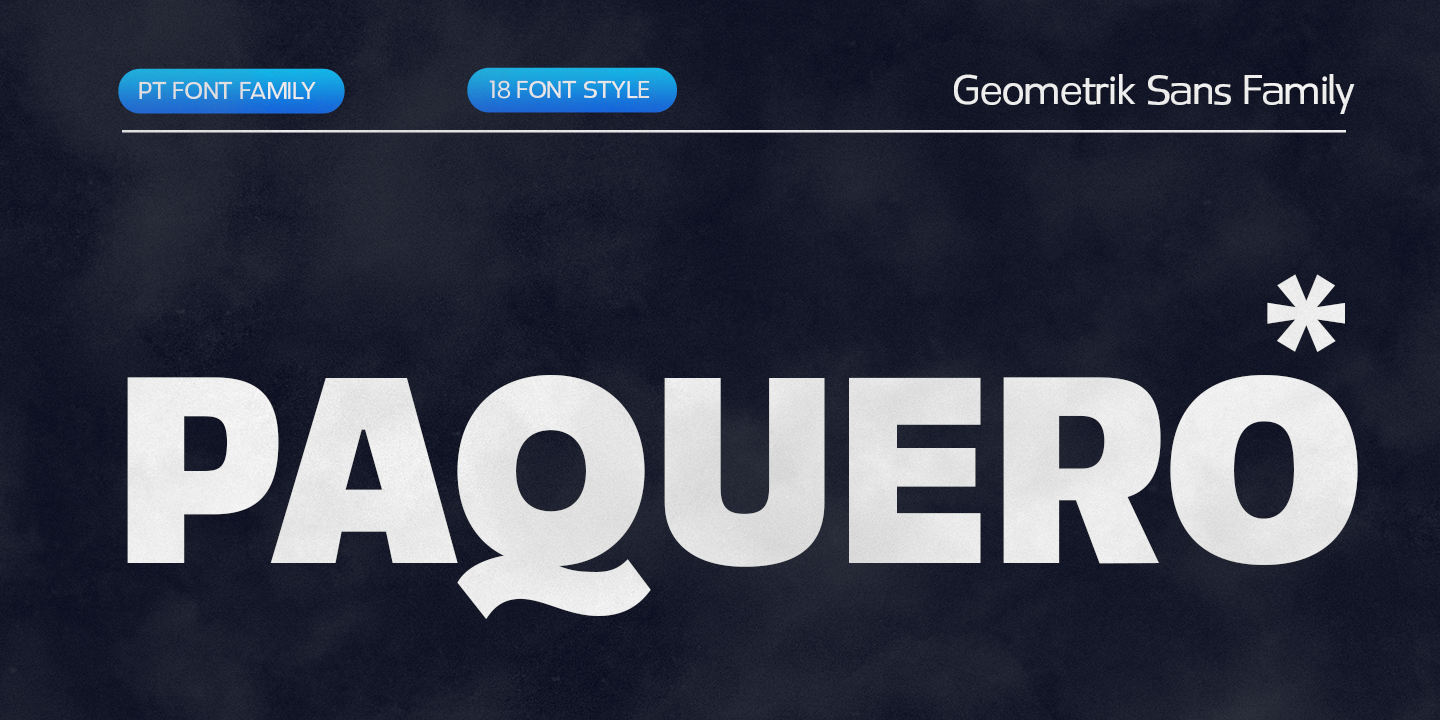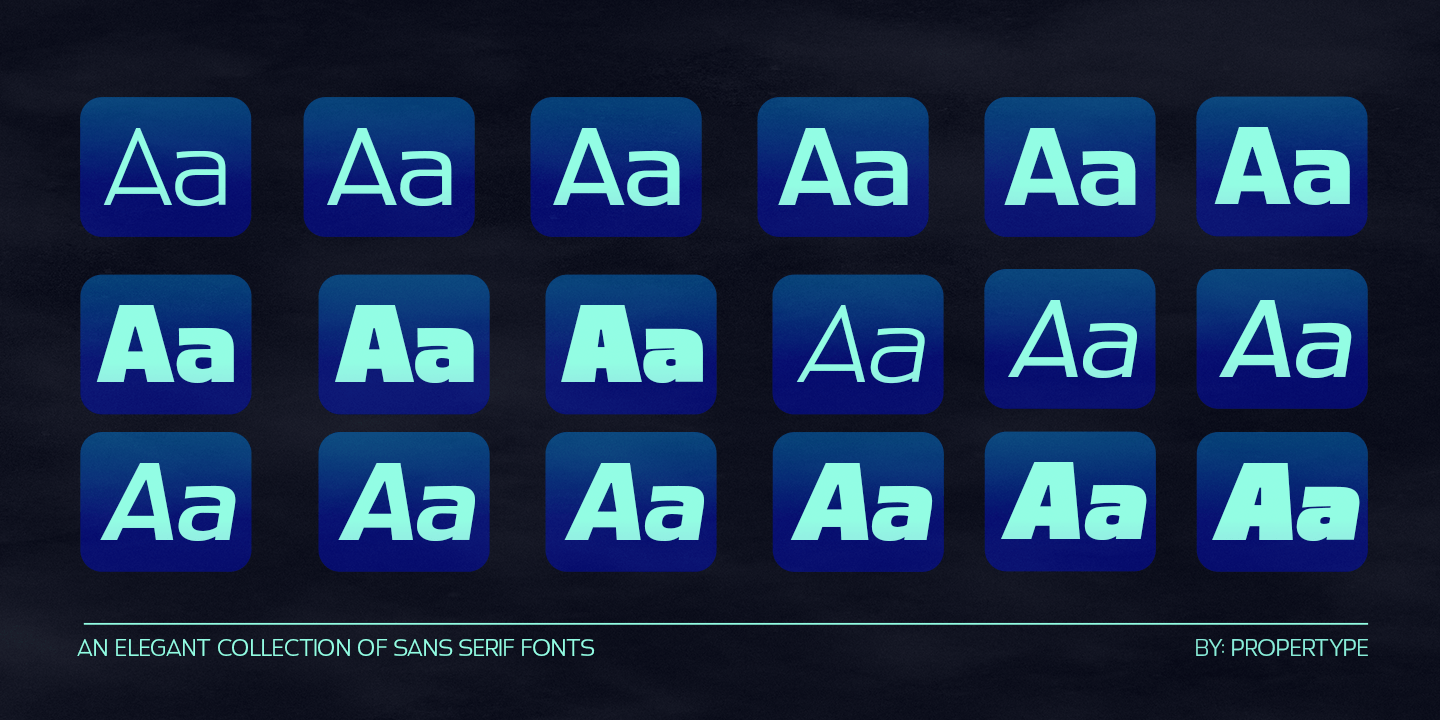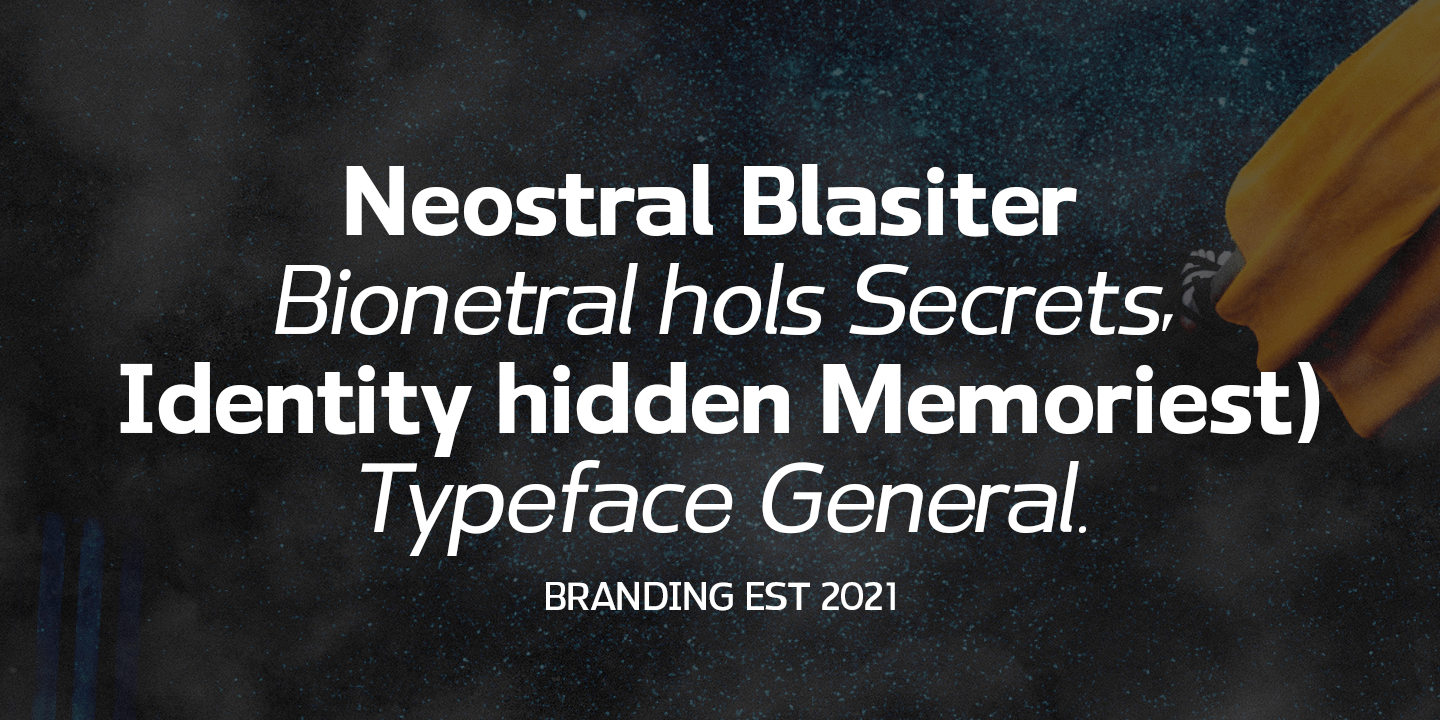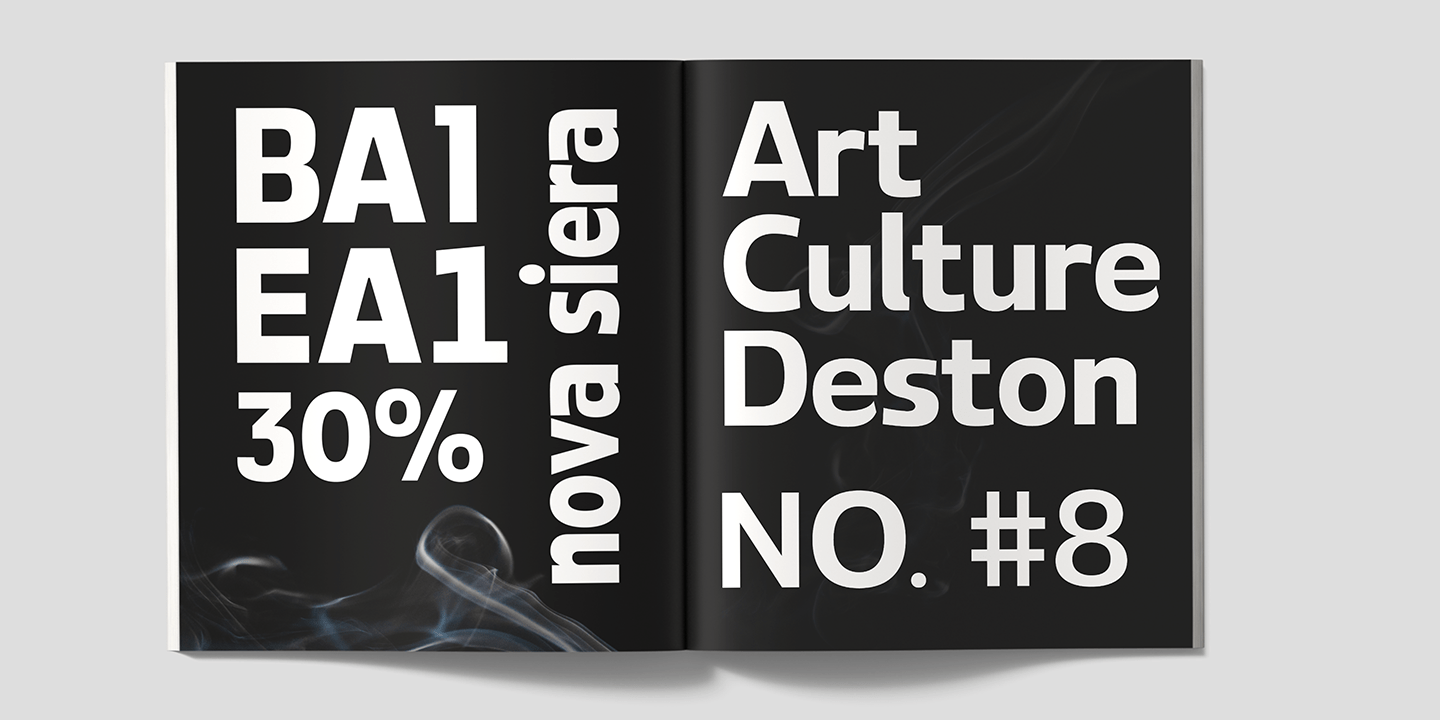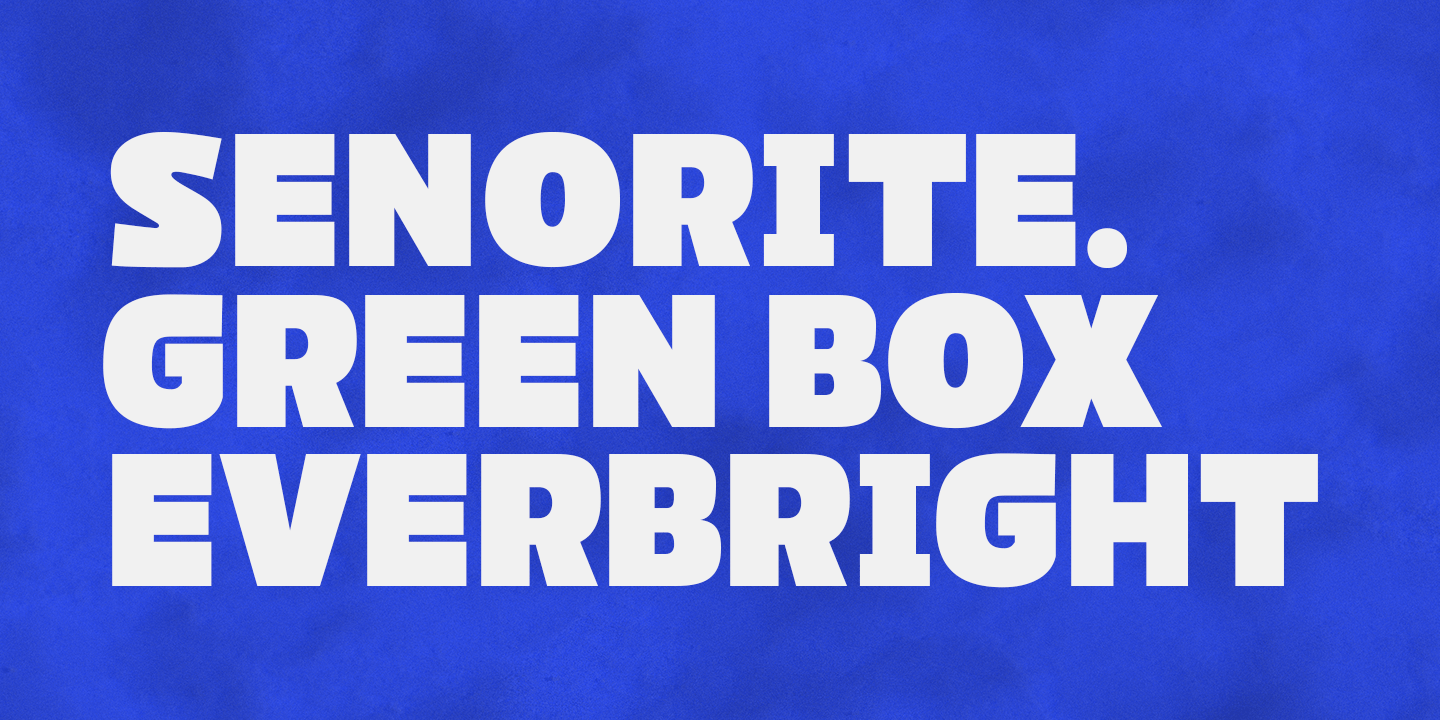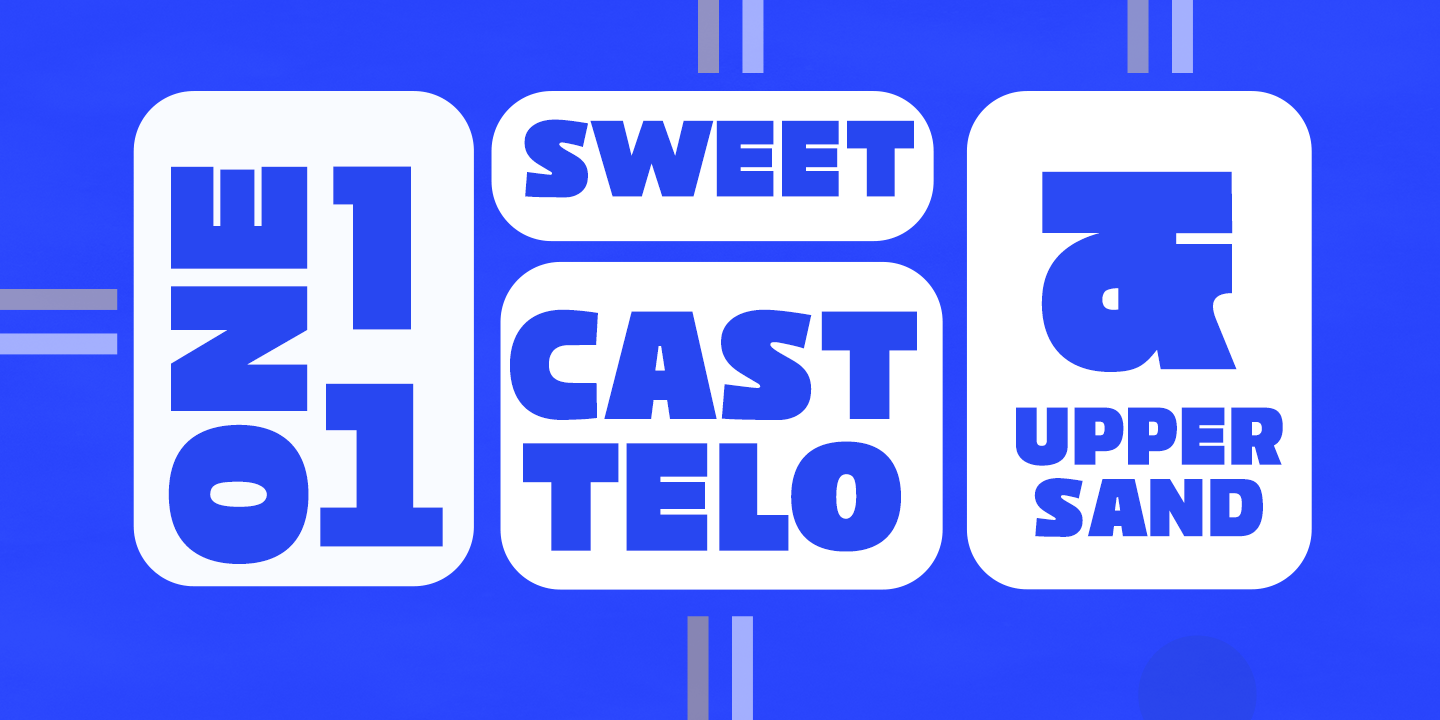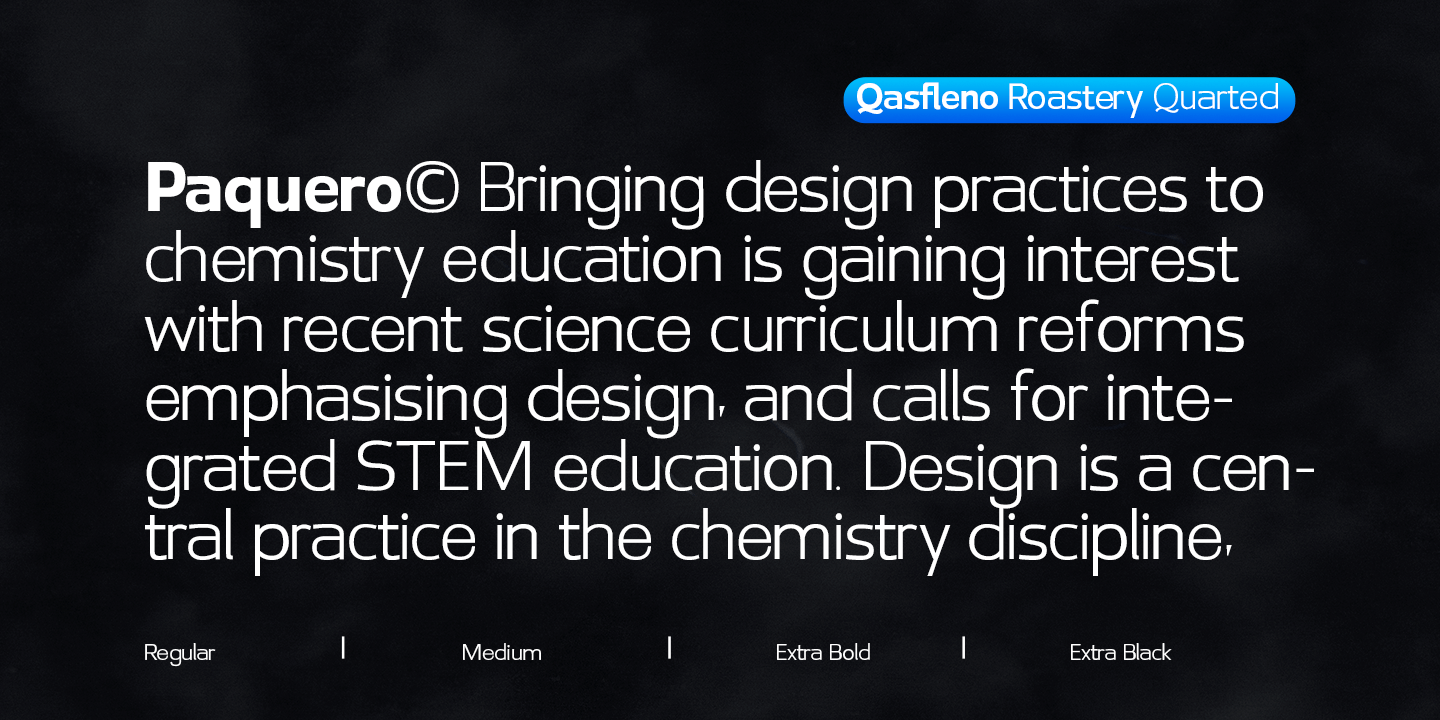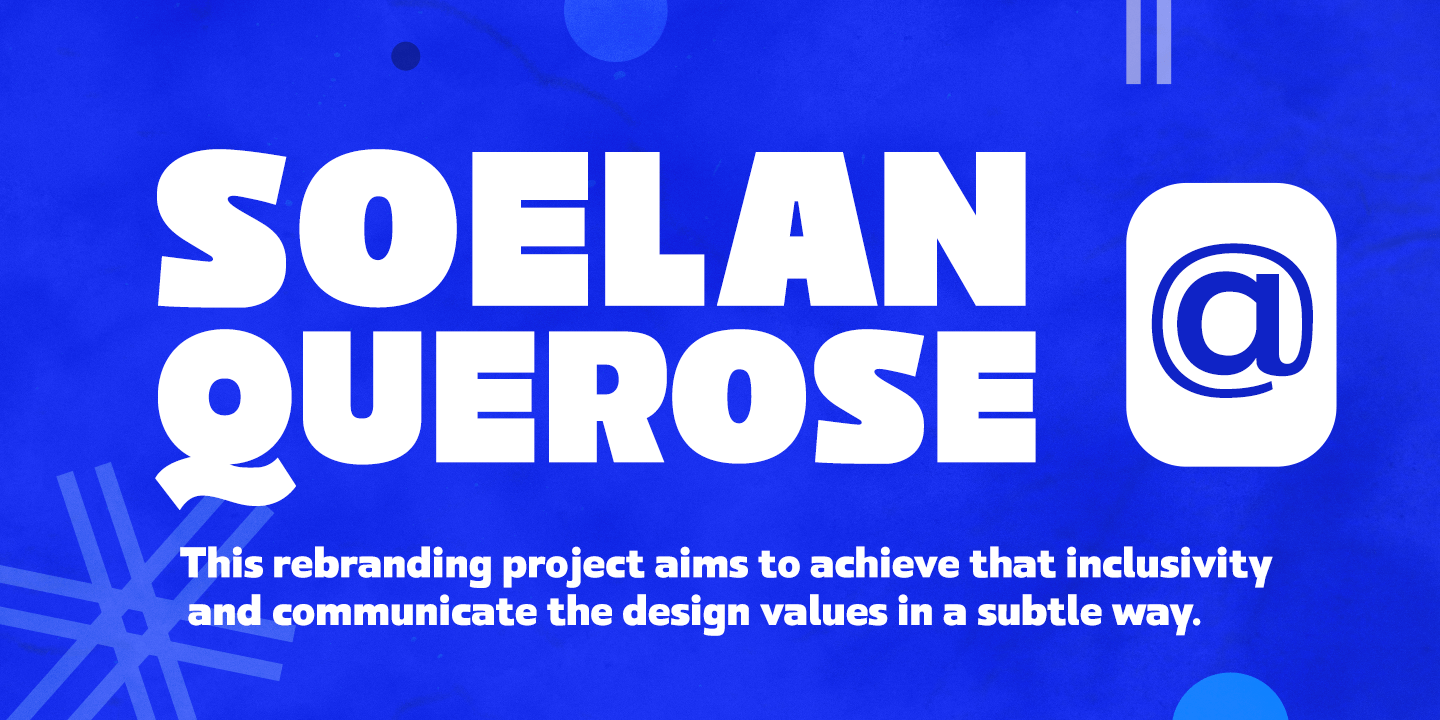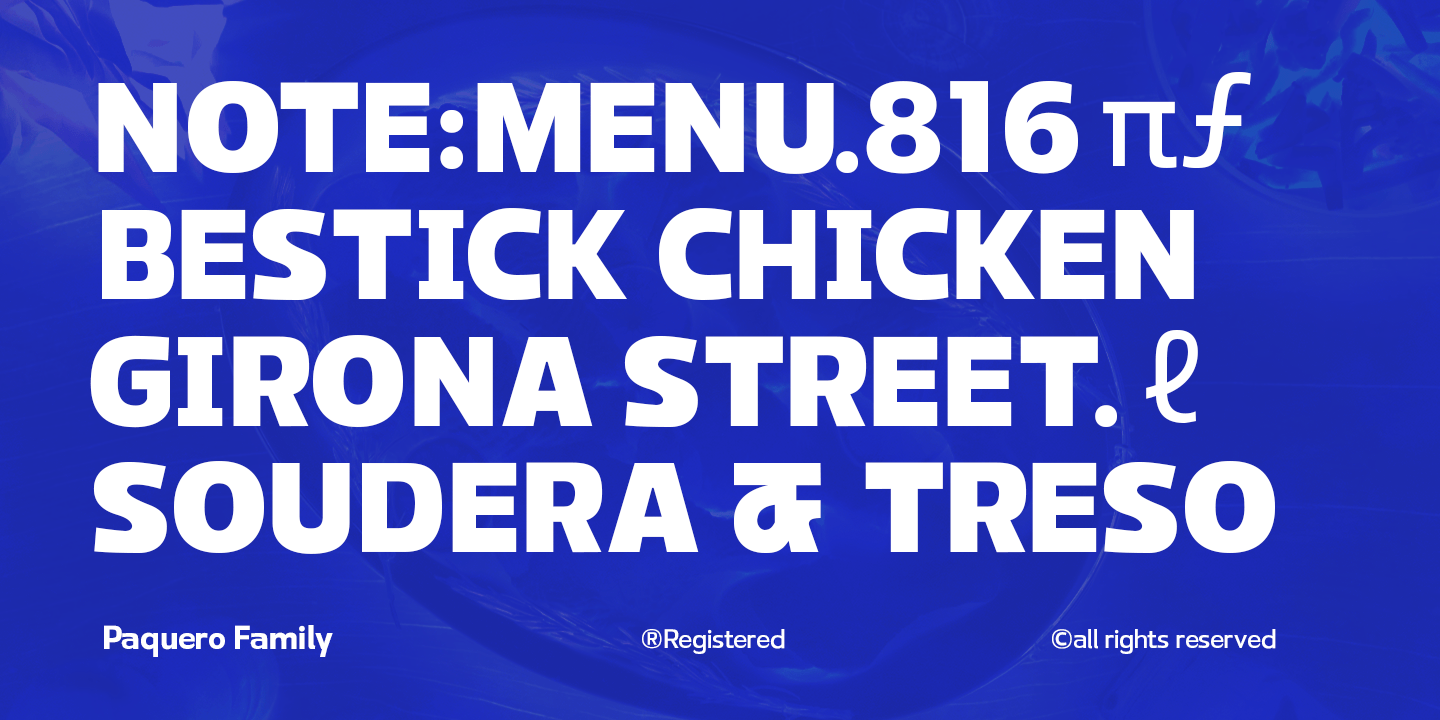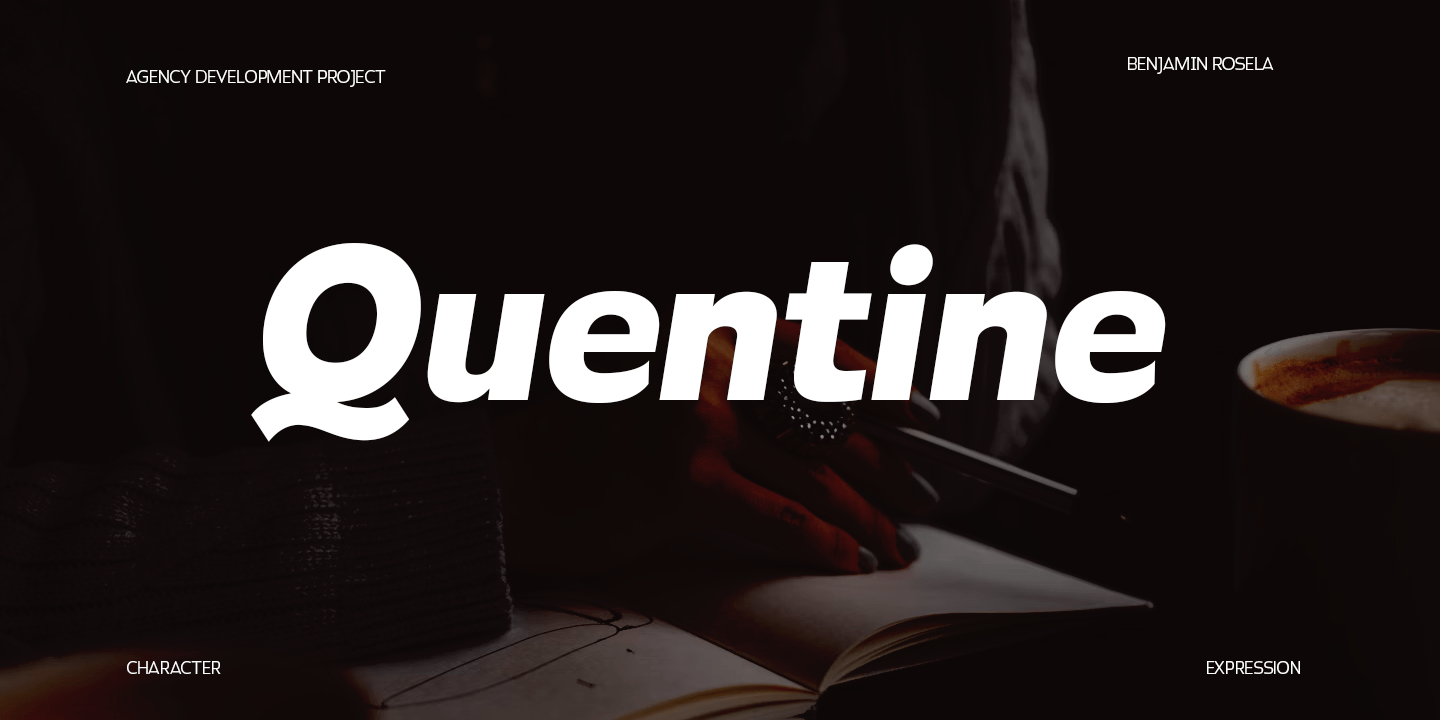
Paquero
Font Family by Propertype
Paquero is a contemporary geometric sans font family in 18 styles.
Strong geometric characters combine with sharp modern cuts, resulting in a strong font with a distinctive personality. The bold repetition of basic shapes creates a clear rhythm, making this a highly legible set suitable for everyday use.
Paquero comes in 9 weights, each designed to fill space without being overpowering, appearing refined and confident. The tall X-height and strong capital letters maintain clear visibility in all weights and have been optically corrected for better legibility. A matching 12º slant helps provide a complete expression.
The Paquero family features a fresh reworking of the classic geometric style, offering a wide range of potential applications: suitable for logos, branding, signage, interfaces, and design.